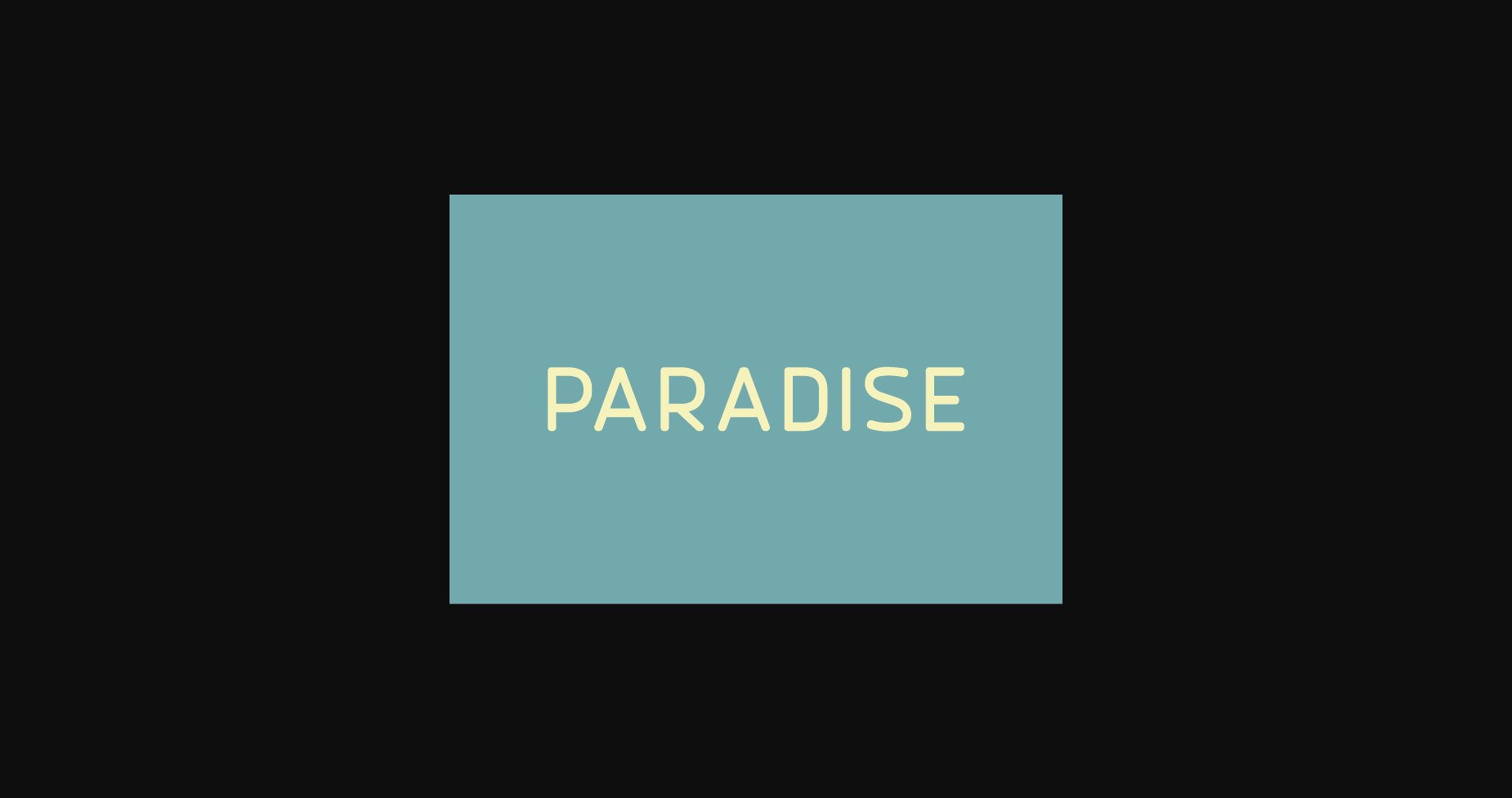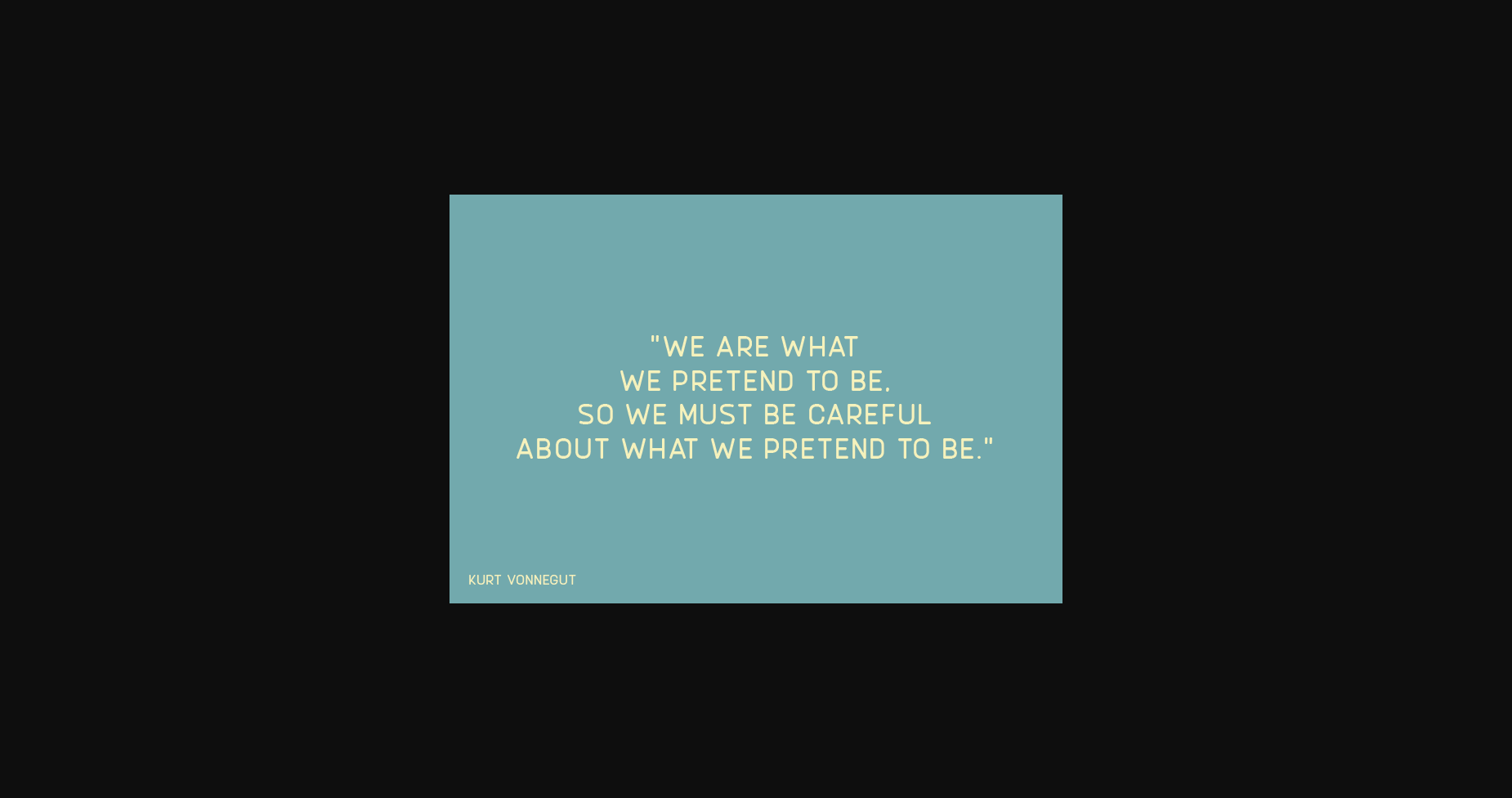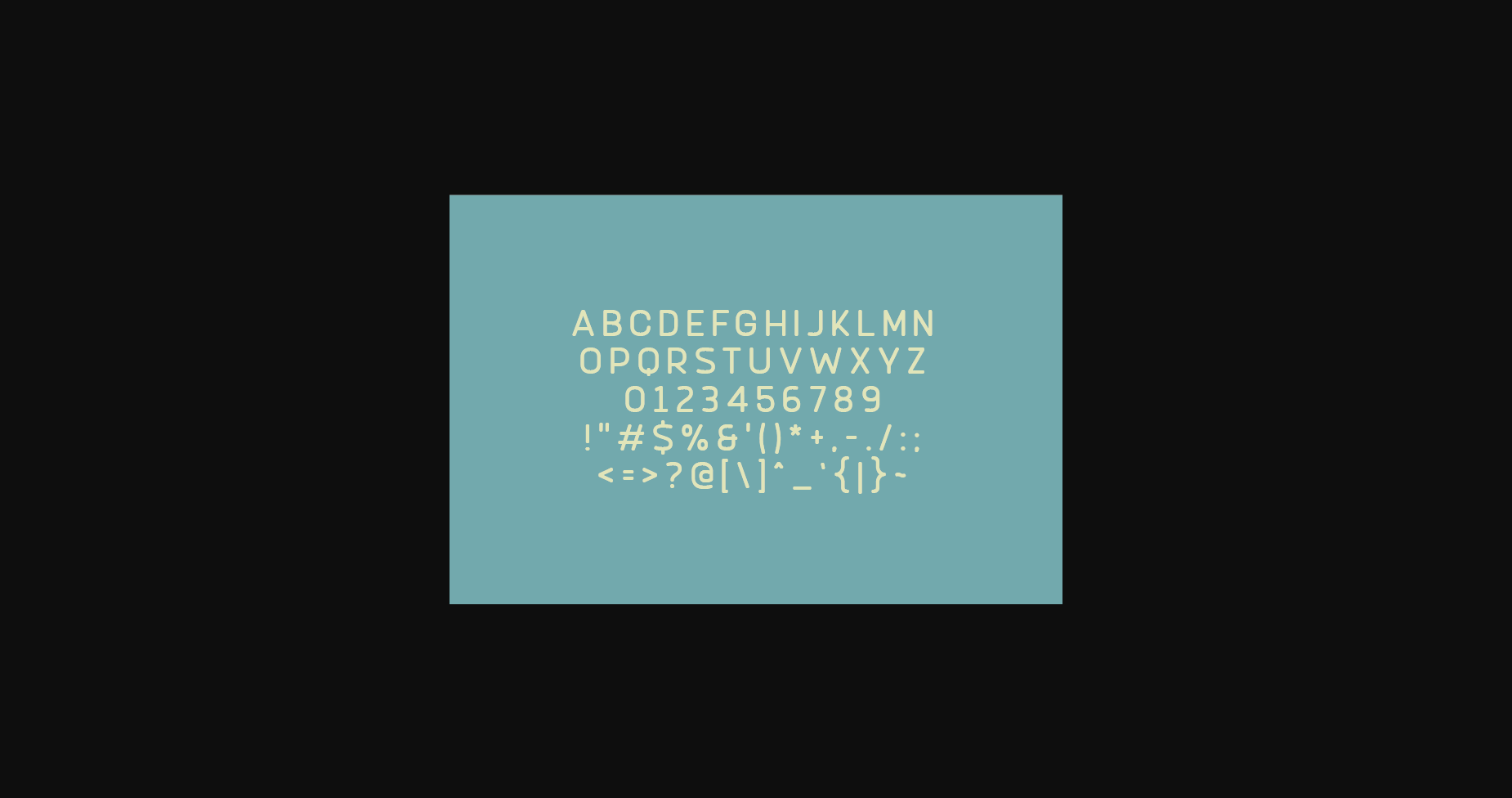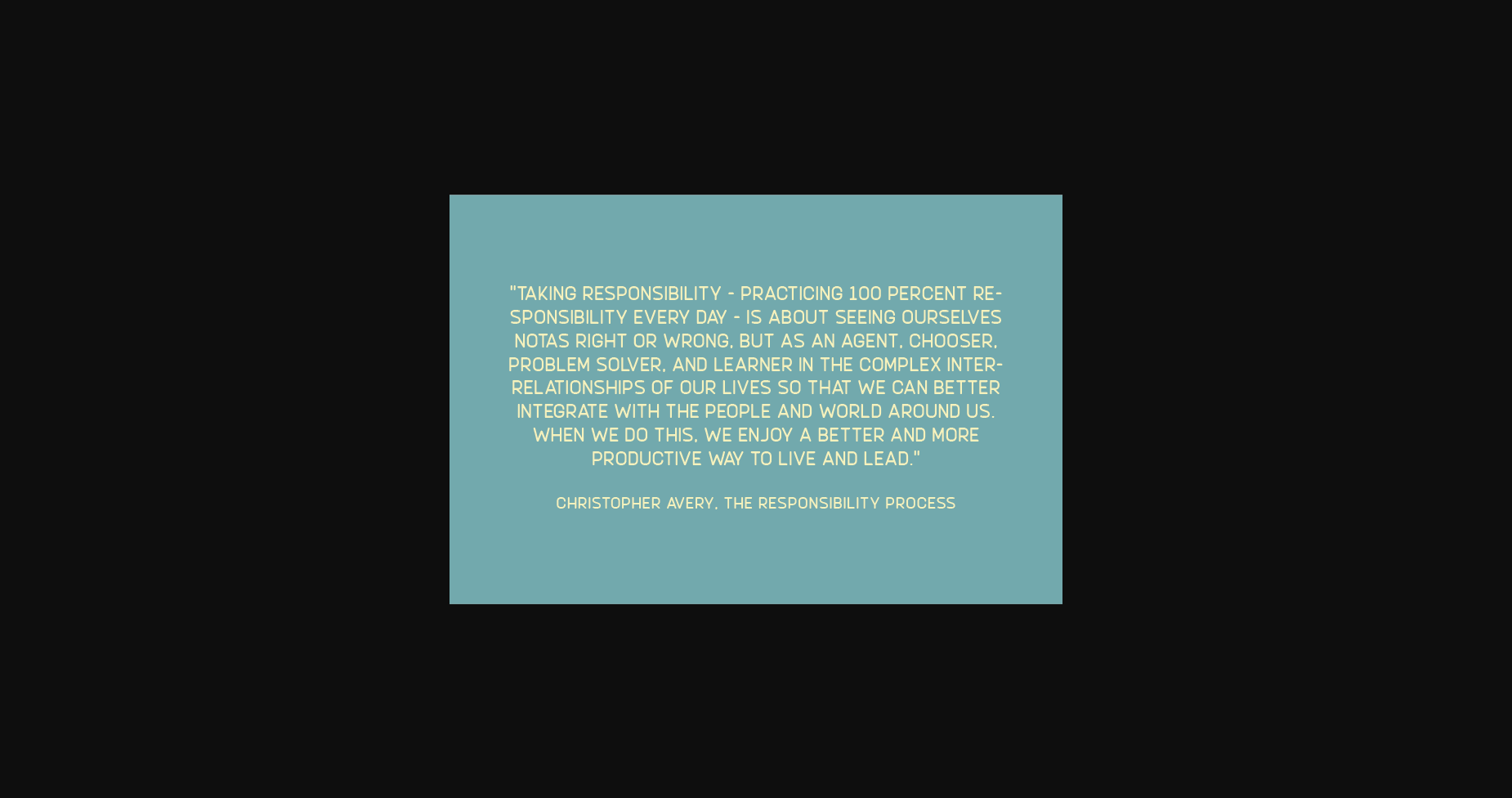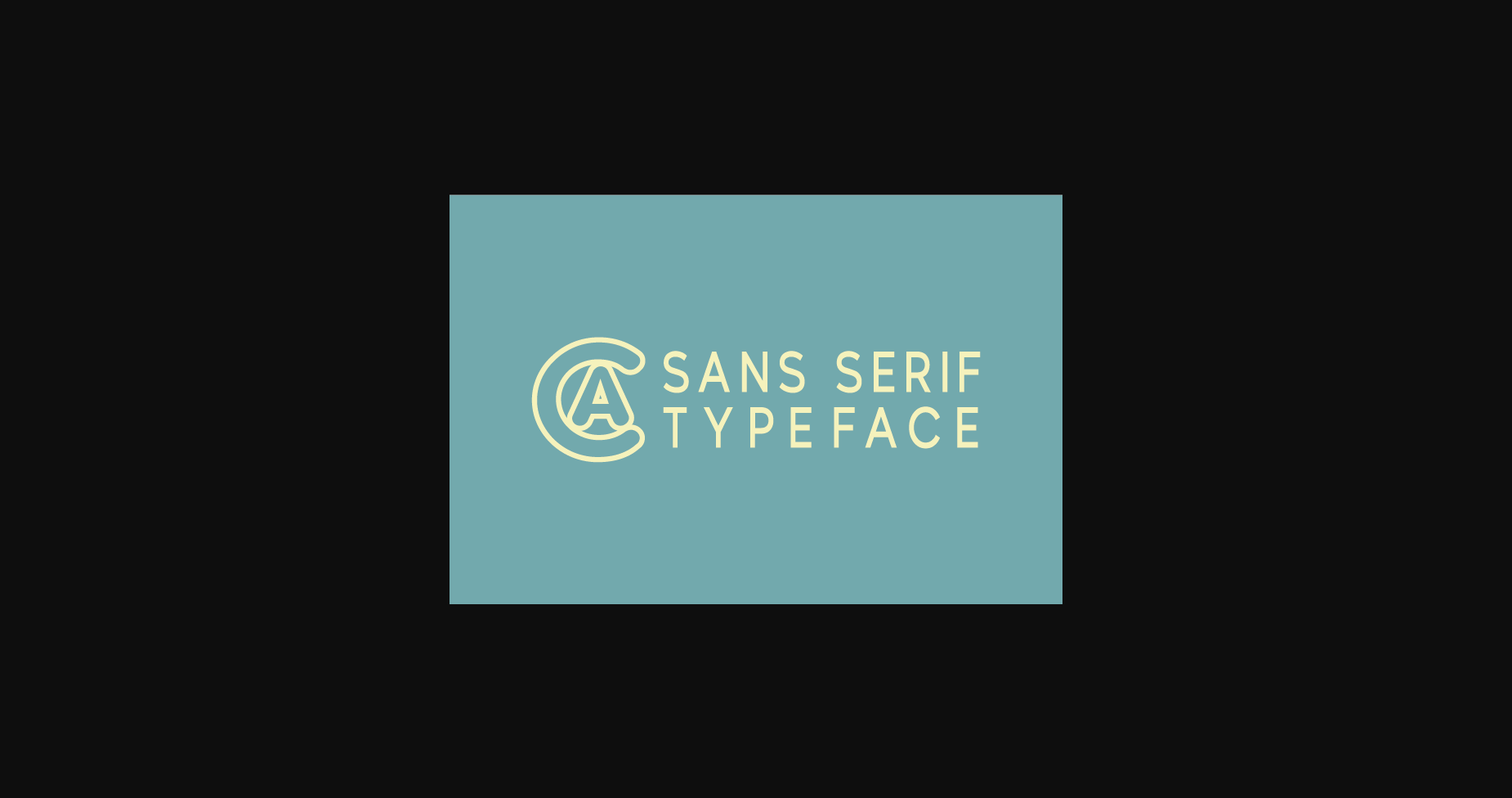
About Paradise Font
Introducing Paradise, a modern, classy sans serif typeface.
An extremely versatile font, perfect for logos, weddings, invitations, quotes, advertisements, print, magazines, and more!